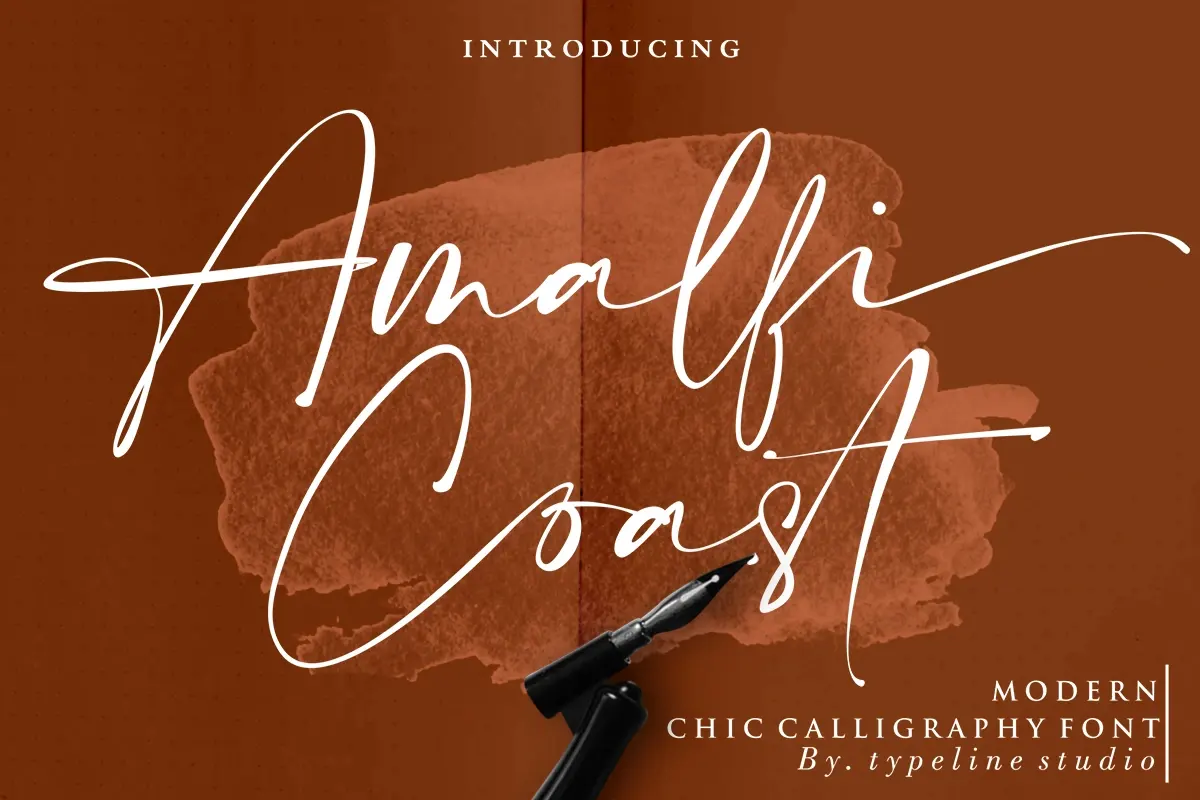
Amalfi Coast // Chic Calligraphy Font Free Download is a luxurious and elegant calligraphy script typeface that adds a sophisticated, artistic touch to any design. With its graceful curves, flowing lines, and stylish flourishes, this font is perfect for invitations, branding, wedding materials, logos, and any design project that requires an elegant, handwritten aesthetic.
Inspired by classic calligraphy, Amalfi Coast brings a sense of refinement and class to your typography. Whether you're designing for a high-end event, a luxury brand, or a personalized greeting, this font enhances the beauty and elegance of your designs.
Add sophistication and elegance to your designs with the flowing beauty of Amalfi Coast!